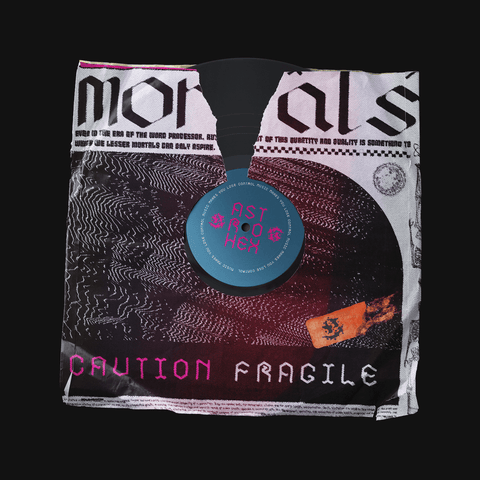
Astrohex - Free Retro Inspired Font
Astrohex is a retro inspired display font created by Craig Chadwick.
It features 2 styles - Regular, which features smooth rounded terminals & Edge, which includes sharper slanted terminals and a varying weight. Both great options for your next retro futuristic design project.